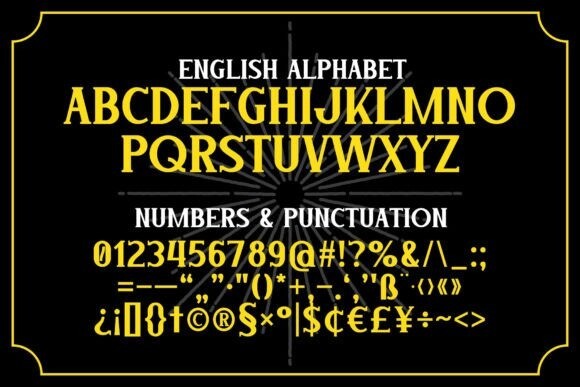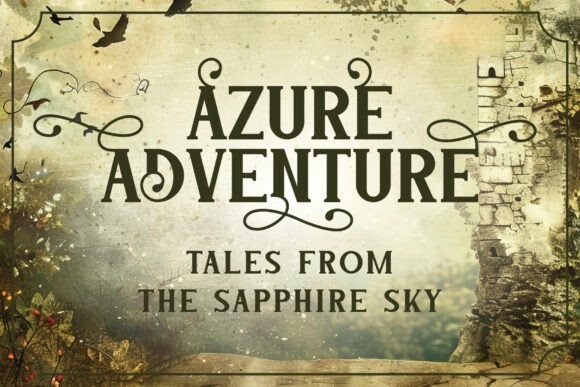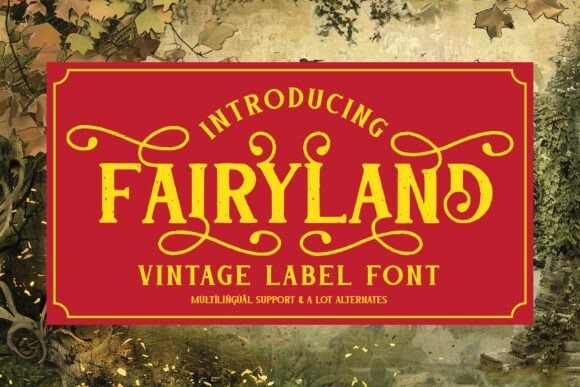
Fairyland Vintage Font
Fairyland Vintage Font is a lovely and timeless display font. It is the best choice for creating eye catching logos, branding and quotes. Every letter has a unique and beautiful touch, which will make your design come alive!